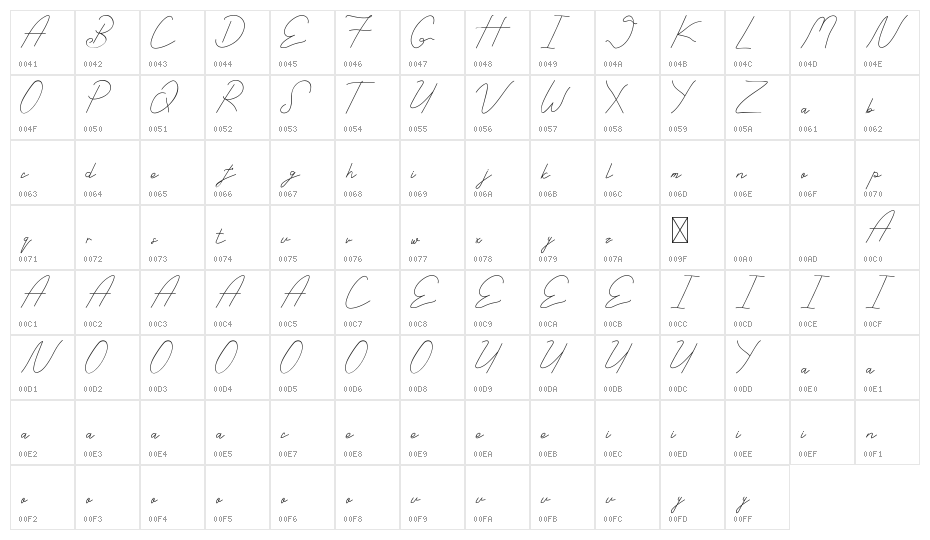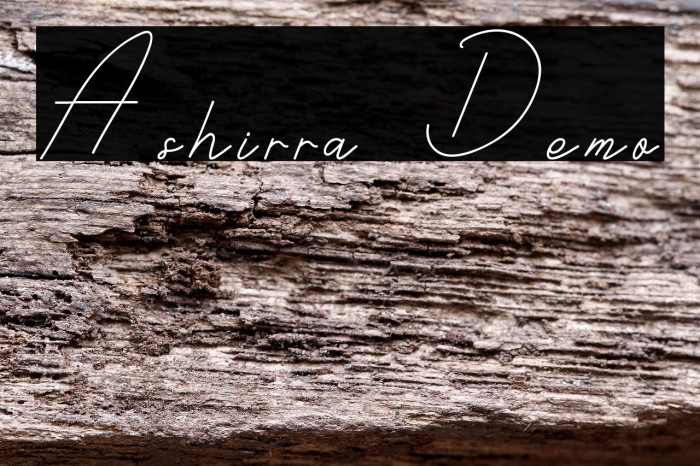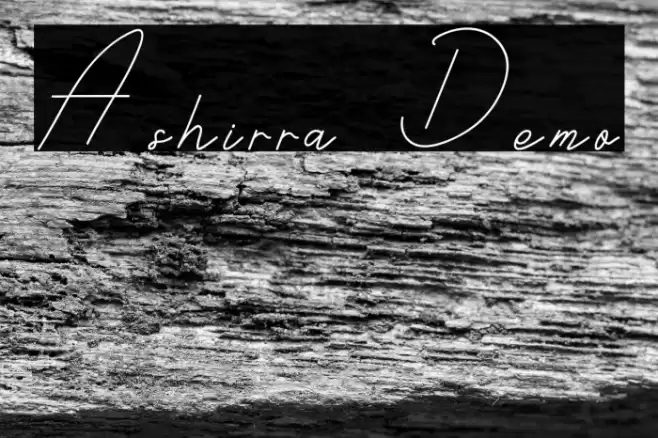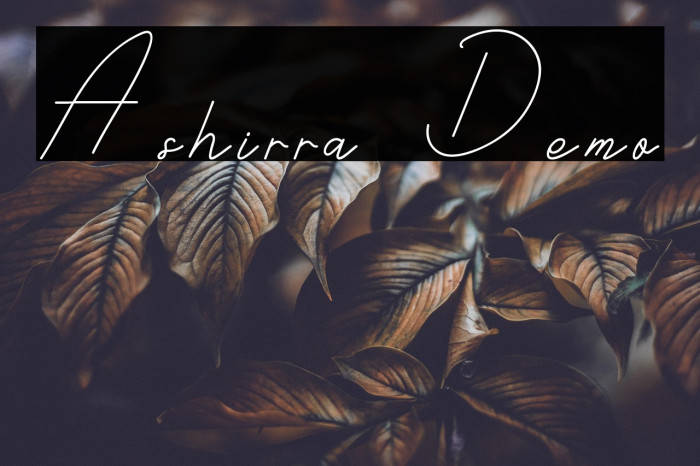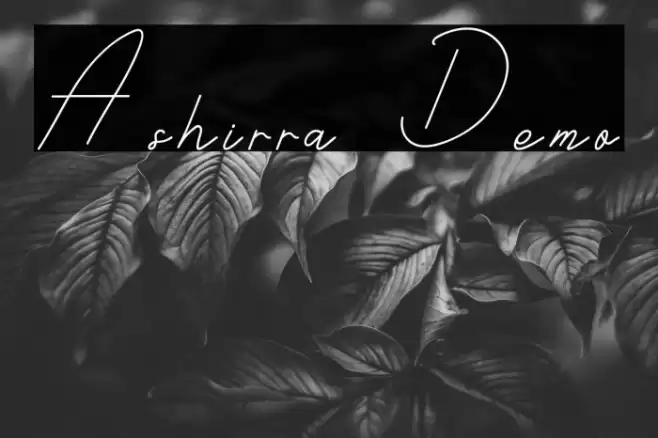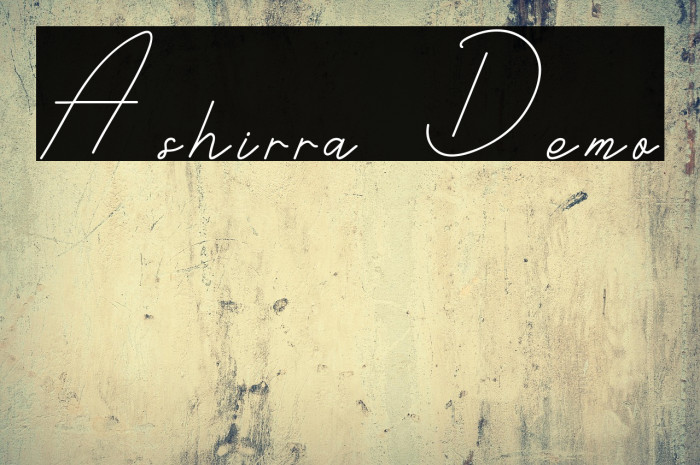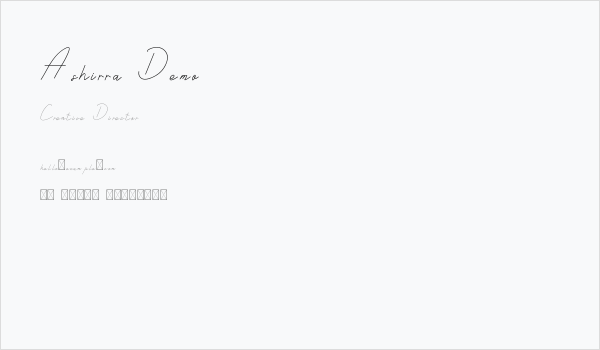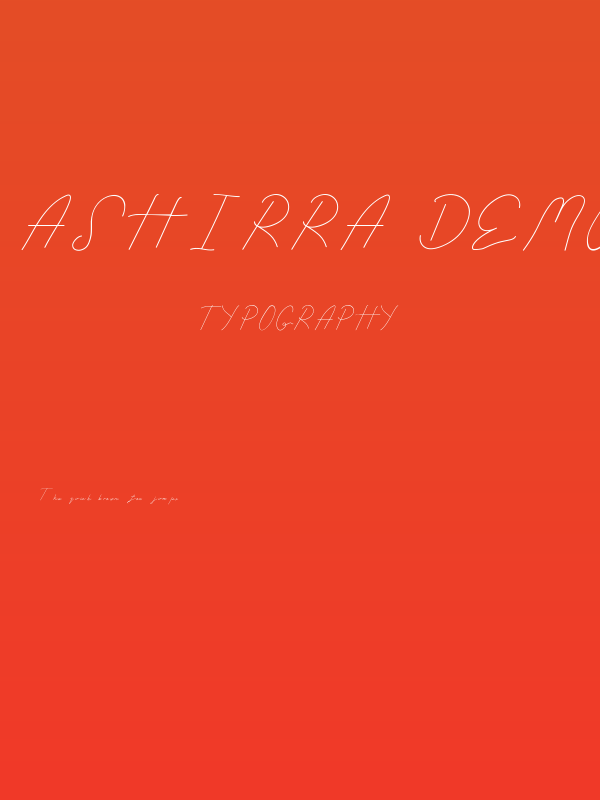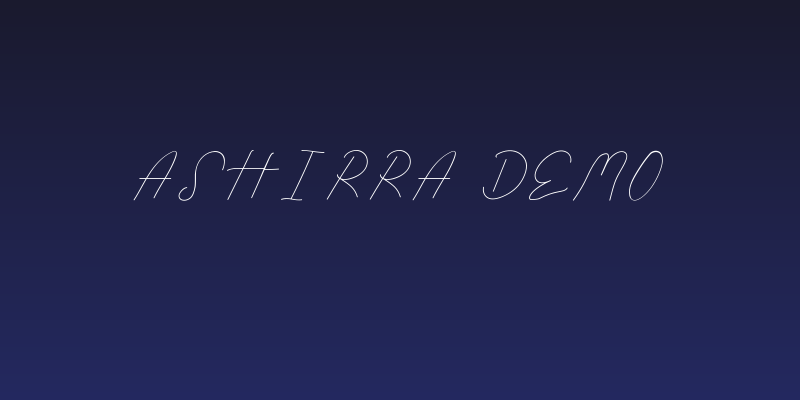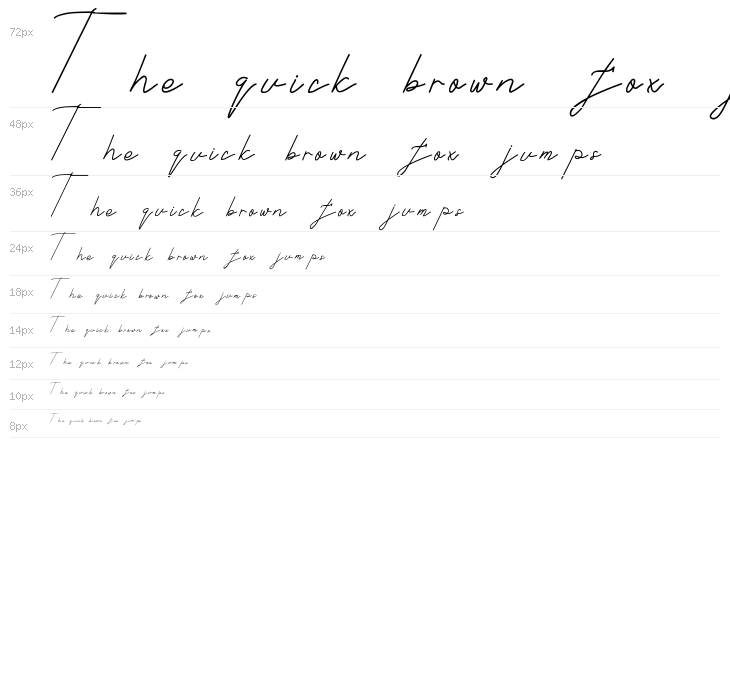
Ashirra Demo Font
Ashirra Demo Description
This font features a delicate and elegant script style, characterized by its flowing, cursive letterforms. The uppercase letters are tall and slender, with smooth curves and subtle flourishes that add a touch of sophistication. The lowercase letters maintain a consistent flow, connecting seamlessly in a way that mimics natural handwriting. The overall appearance is graceful and refined, making it ideal for projects that require a personal or artistic touch. The font's thin strokes and airy design lend it a light and airy feel, perfect for adding a sense of elegance and charm.
| Overall Style | Elegant, Artistic |
| Proposed Projects | Ideal for wedding invitations, greeting cards, personal branding, and artistic projects. |